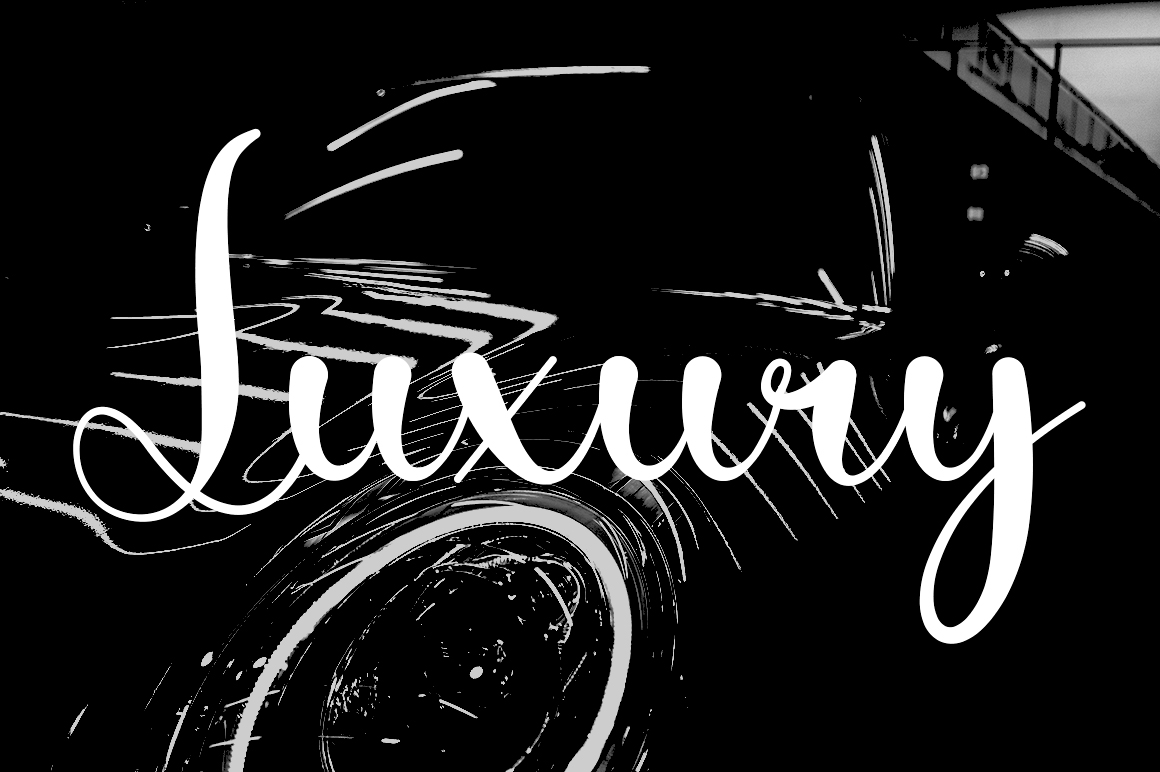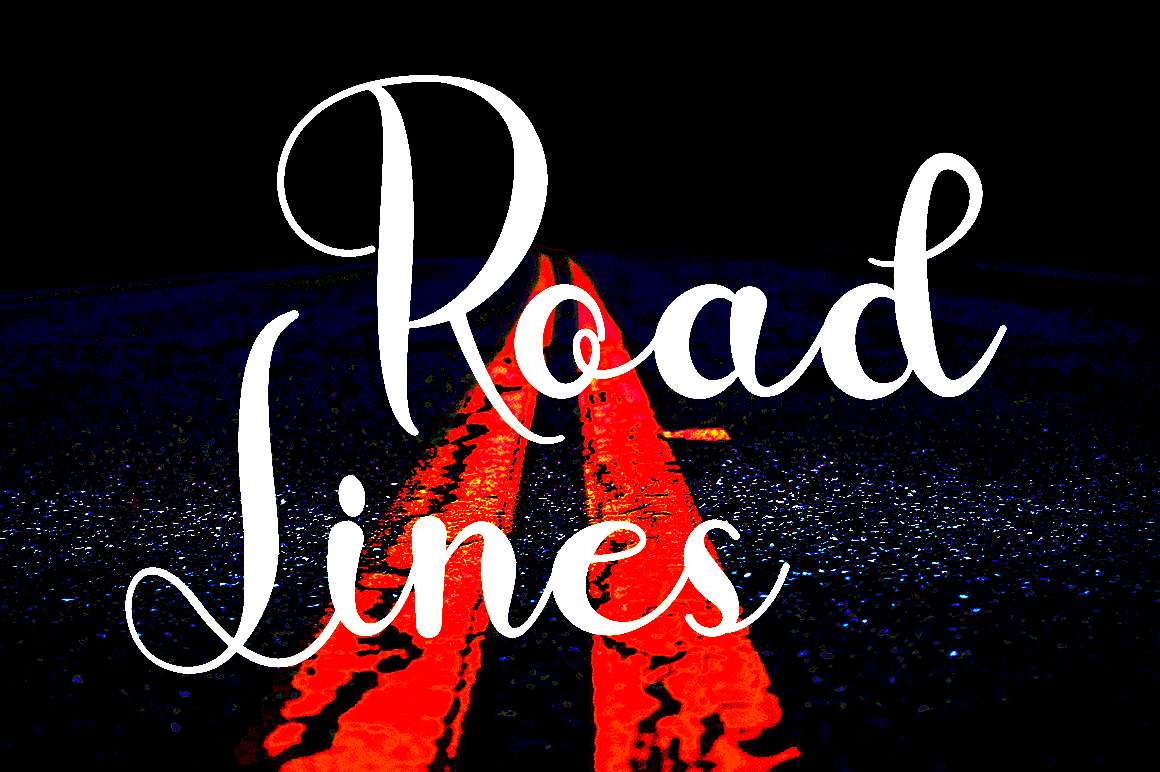
The Life Script Font
This is a distinct and graceful script font. Fall for its appealing style and use it to create chic designs. It will elevate a wide range of crafting ideas, from cards, to branding, labels and much more.